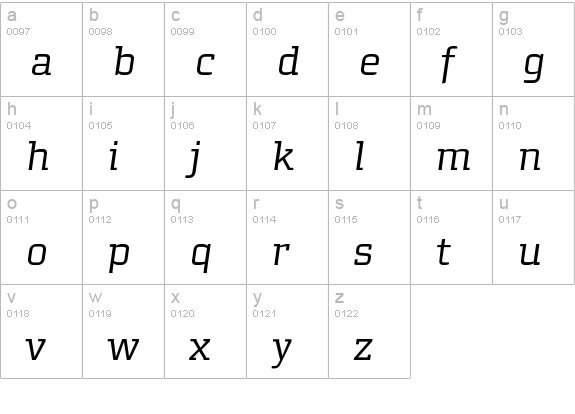
MorganAvec ItalicLining Font Details
Introducing MorganAvec ItalicLining font, a stylish and elegant typeface that exudes sophistication and charm. Its delicate curves and unique letterforms make it ideal for adding a touch of flair to your designs. Whether you're working on branding, invitations, or editorial projects, MorganAvec ItalicLining is sure to make a statement. And the best part? This exquisite font is available for free download at FontsMarket.com! Now you can enhance your projects with this premium font without breaking the bank. Don't miss out on the opportunity to elevate your designs with MorganAvec ItalicLining – download it today and let your creativity shine!